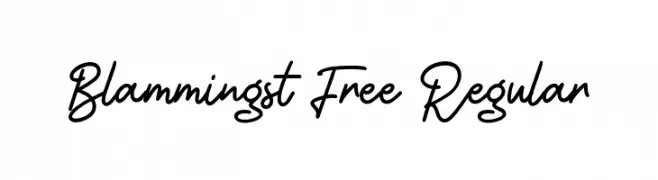
A fluid and elegant handwritten font with connected strokes and a dynamic slant.
A bold, futuristic font with a dynamic slant and geometric structure.
A playful, flowing script font with a handwritten charm.
A bold, brush-style font with dynamic, slanted strokes.
A hand-drawn, graffiti-inspired font with dynamic, uneven strokes.
A whimsical handwritten font with playful loops and flowing letterforms.
Playful handwritten font with an informal style.
A decorative font with gothic influences and intricate detailing.
A sharp, angular serif font with condensed letterforms and high contrast strokes.